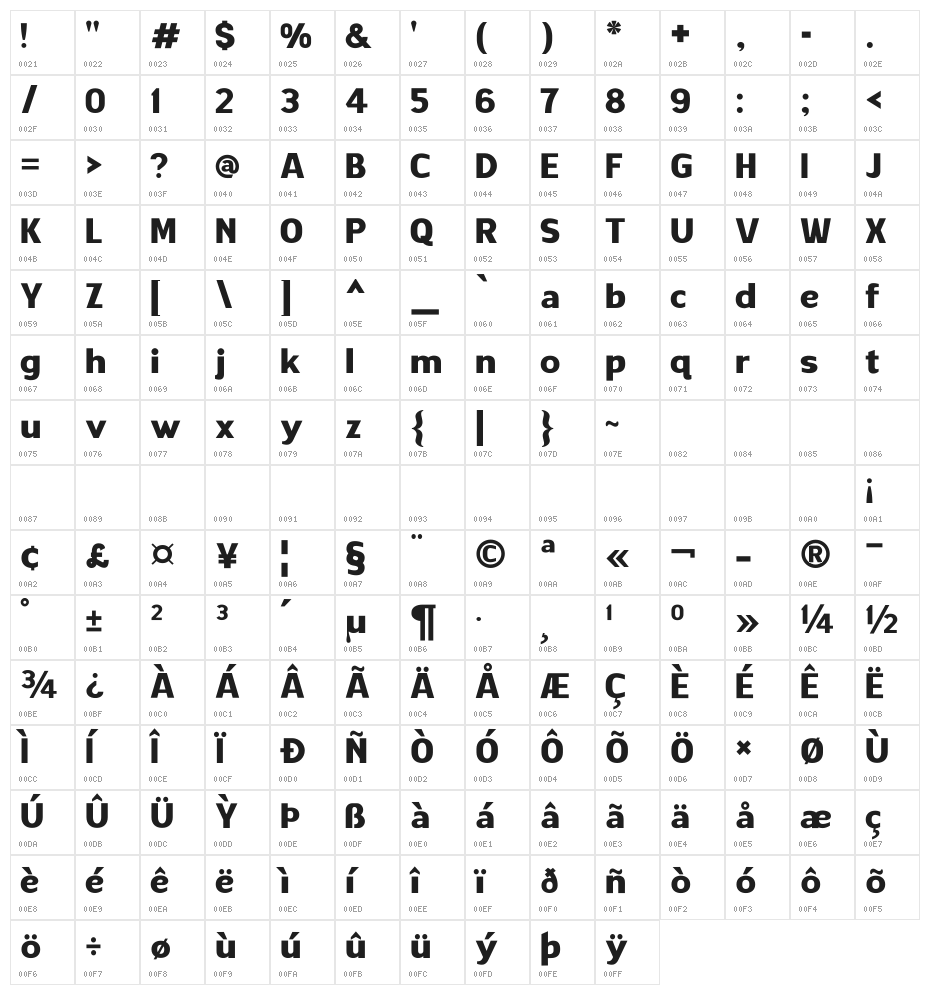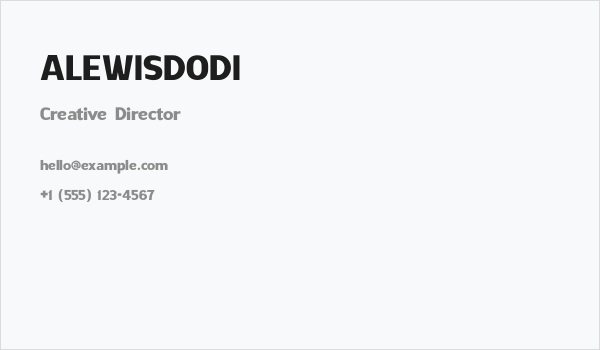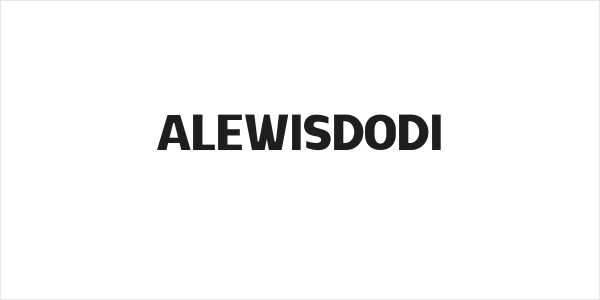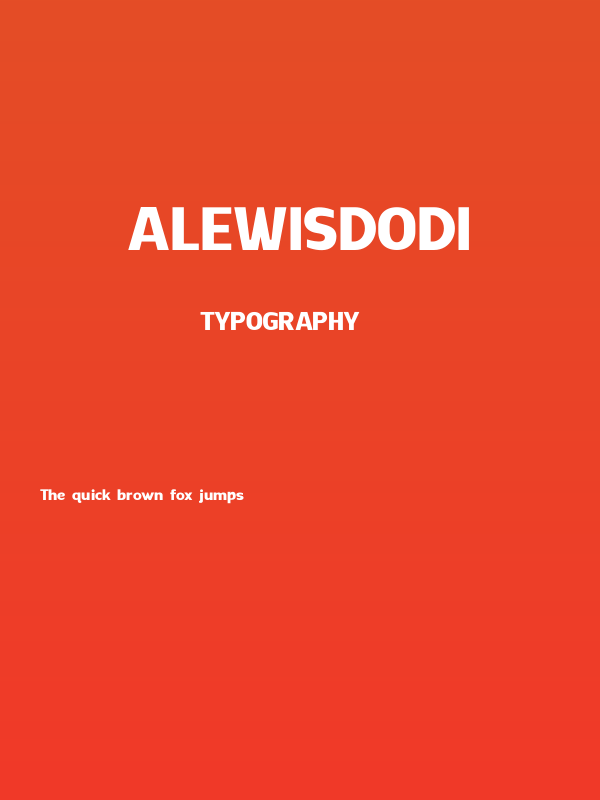
ALEWISDODI Font
ALEWISDODI Description
This font features bold, strong characters with a modern and impactful design. The uppercase letters are robust and commanding, while the lowercase letters maintain a consistent weight, providing a harmonious balance. The numerals are clear and easily readable, making them suitable for various applications. The special characters are well-defined, adding versatility to the font. Its overall style is clean and contemporary, making it ideal for attention-grabbing headlines and branding projects.
| Use Case | Headlines, Logos, Advertising |
| Proposed Projects | Ideal for branding, advertising, headlines, and digital media where a strong visual impact is needed. |